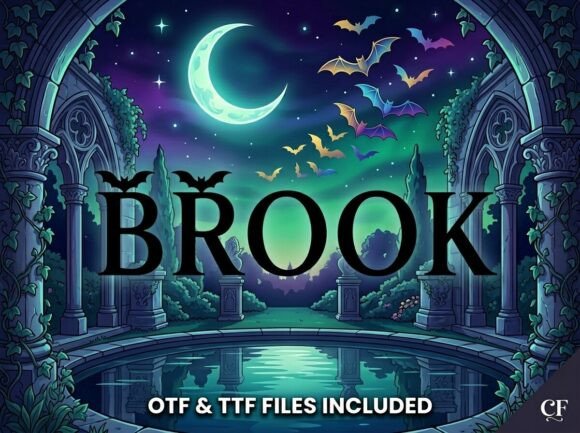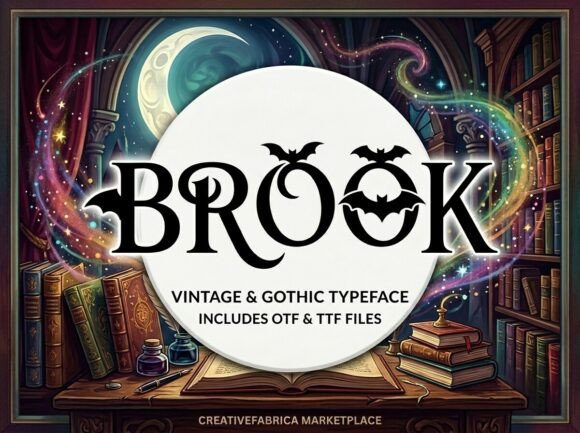
Introducing Brook Font: A Stunning Decorative Display Font
Are you tired of using the same old fonts for your designs? Do you want to add a touch of uniqueness and creativity to your projects? Look no further than Brook Font, a decorative display font that’s sure to turn heads. In this article, we’ll dive into the features and benefits of Brook Font, and explore how it can elevate your designs to the next level.
Brook Font is a stunning decorative display font designed to be the center of attention. With its unique artistic elements and strong visual personality, this font is perfect for creators who want to break away from the ordinary. Whether you’re working on a bold headline, artistic logo, or creative packaging, Brook Font is the perfect choice.
Key Features of Brook Font
- Unique Artistic Elements: Brook Font features unique artistic elements that set it apart from other fonts. Each letter is carefully crafted to make a statement, making it perfect for high-impact headlines and logos.
- Strong Visual Personality: This font has a strong visual personality that adds a touch of sophistication and elegance to any design.
- Versatile: Brook Font is versatile enough for use in a variety of design projects, from bold headlines and artistic logos to creative packaging.
- Professional and Polished Finish: Despite its decorative nature, Brook Font maintains a professional and polished finish, making it suitable for use in a range of applications.
Why Choose Brook Font?
So why choose Brook Font over other decorative display fonts? Here are just a few reasons:
- Uniqueness: Brook Font offers a unique and distinctive look that will set your designs apart from the crowd.
- Versatility: This font is versatile enough for use in a range of design projects, from print to digital.
- High-Quality: This font is of exceptionally high quality, with careful attention paid to every detail.
How to Use Brook Font
Brook Font is perfect for a range of design projects, including:
- Headlines and Titles: Use Brook Font to create bold and eye-catching headlines and titles that demand attention.
- Logos and Branding: This font is perfect for creating unique and memorable logos and branding elements.
- Packaging and Labels: Use Brook Font to add a touch of creativity and sophistication to your packaging and labels.
- Digital Designs: Brook Font is also suitable for use in digital designs, such as social media graphics and website headers.